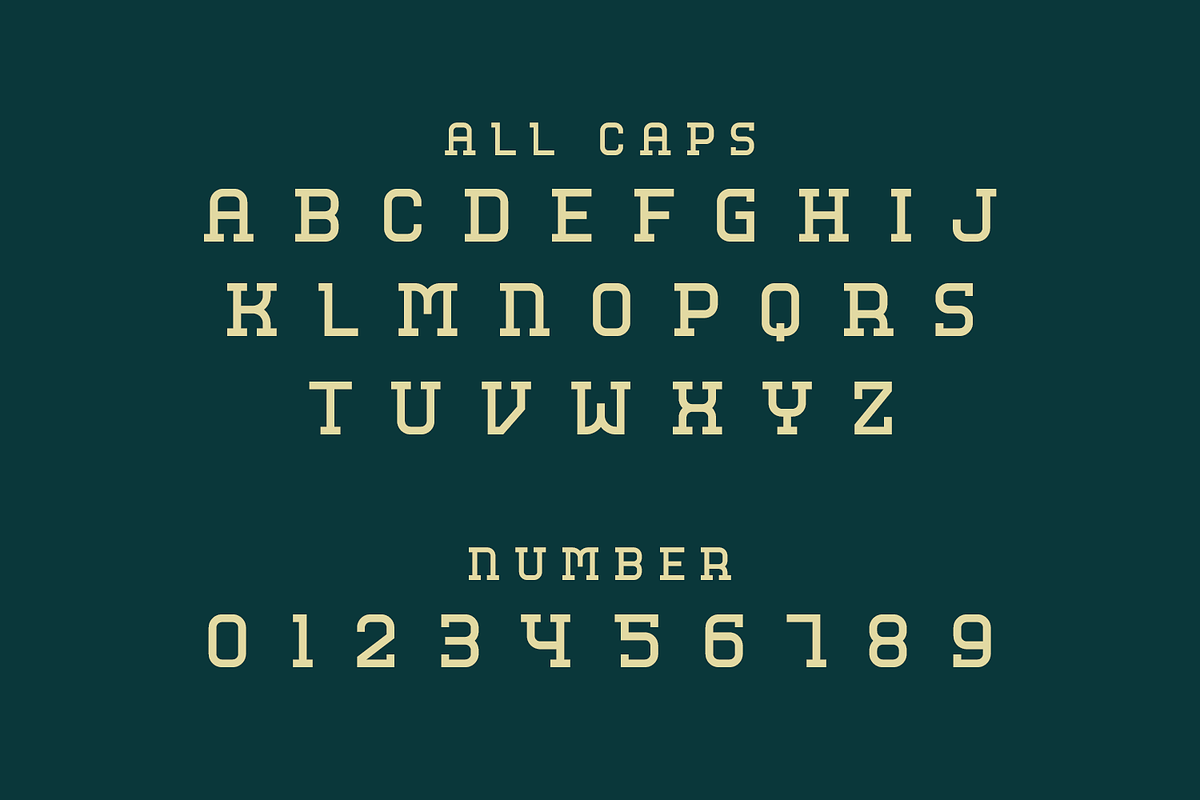
Hemold Font Free Download is a modern and versatile serif typeface designed with clarity and impact in mind. Featuring clean lines, balanced proportions, and strong letterforms, Hemold is perfect for use in branding, logos, editorial design, headlines, and websites. Its combination of classic and contemporary elements makes it ideal for both professional and creative projects.
Hemold’s readability and strength make it ideal for both print and digital formats, giving your design a polished, sophisticated look. Whether you're designing for luxury brands, tech companies, or publications, this font offers versatility and style.